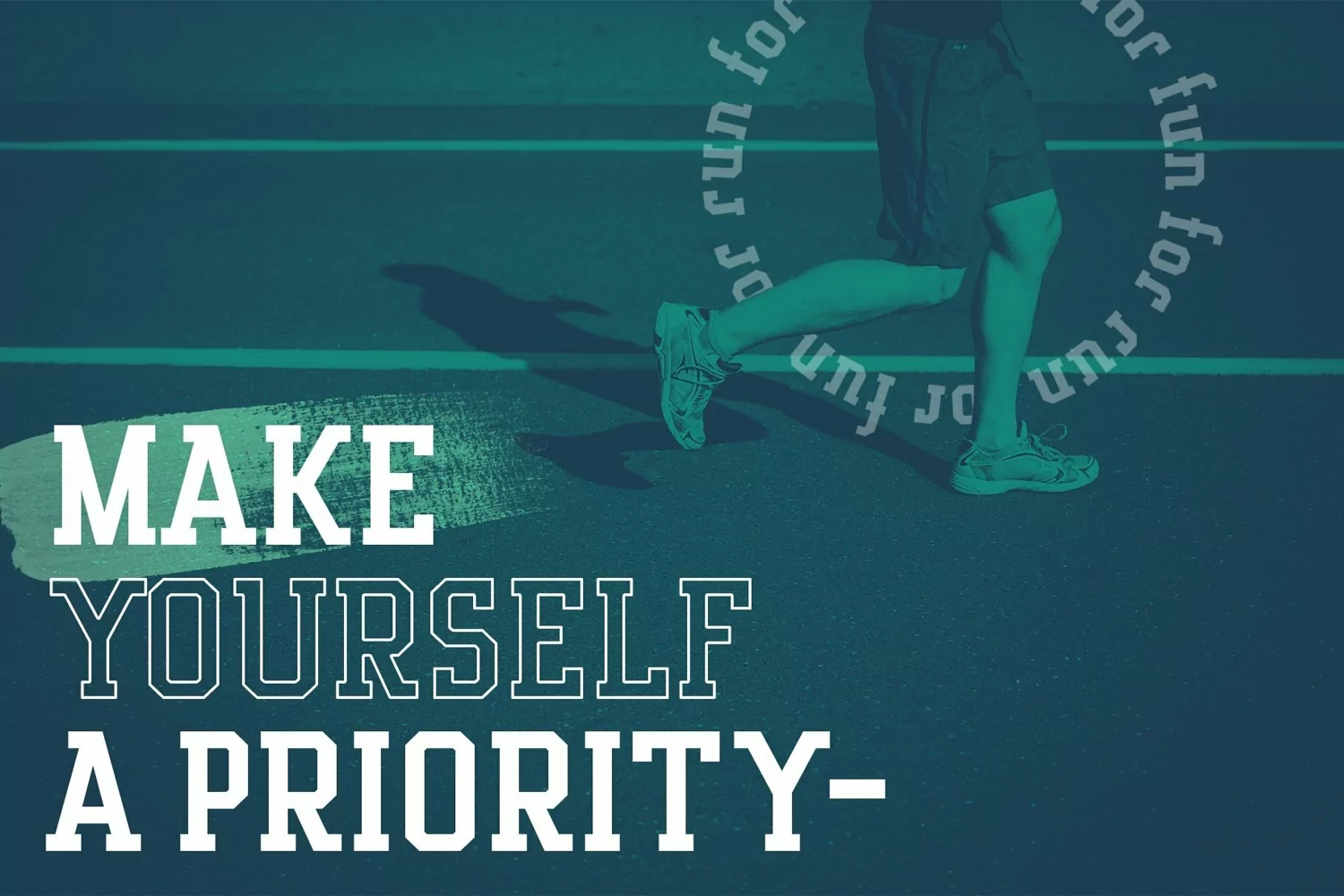
Logano is a display typeface. Perfect for display, poster, quotes, crafting needs, florist needs, wedding needs, business card, signature, packaging, merchandise, branding, logo, logotype, header, tittle, and many more.